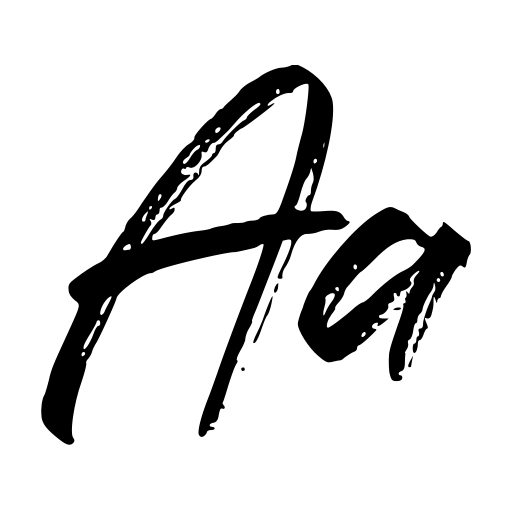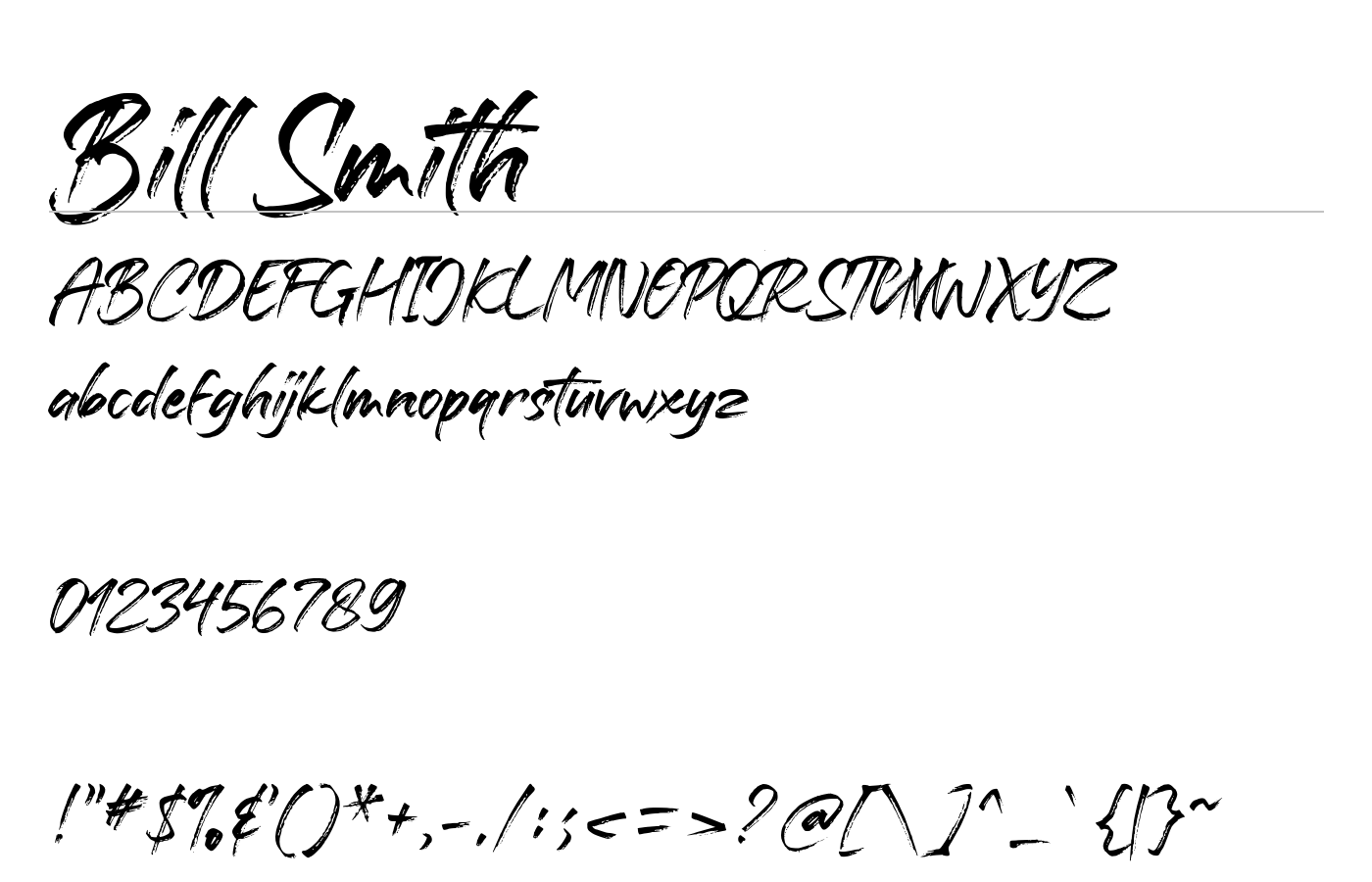
Bill Smith is a lively and expressive script font with a rough, textured brushstroke style that adds a sense of dynamic energy and handcrafted charm. Its irregular, bold letterforms make it perfect for creative branding, posters, and headlines where an informal and artistic feel is desired, bringing personality and a modern edge to designs.
Bill Smith Font
About Bill Smith Font